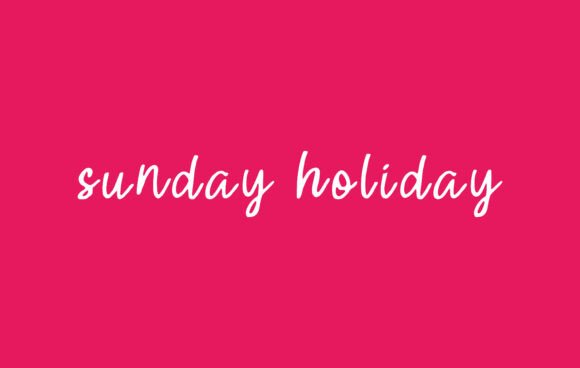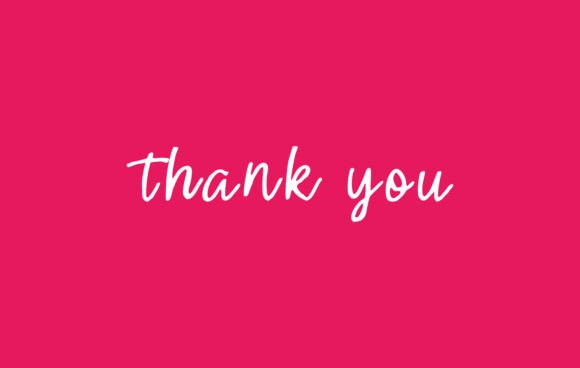
The DigitalSpire Font: A Romantic Touch for Your Creative Projects
I’ll never forget the time I was working on a wedding invitation design project, and my client asked me to create a bespoke font to match the elegant feel of their special day. I spent hours scouring the internet for the perfect font, but nothing seemed quite right. That’s when I stumbled upon the DigitalSpire font, and it instantly became my go-to choice. In this article, I’ll share my experience with this beautiful font, its features, and how to make the most of it in your creative projects.
A Personal Review of DigitalSpire Font
As a designer, I’m always on the lookout for fonts that can elevate my work and make it stand out. The DigitalSpire font has been a game-changer for me, and here’s what I love about it:
- ✨ Authentic handwritten feel: DigitalSpire has a genuine, handwritten look that adds a touch of warmth and personality to any design.
- ✅ Legibility: This font is incredibly legible, making it perfect for both title and body text.
- ✅ Romantic touch: The font’s elegant feel makes it ideal for designs that require a touch of sophistication and romance.
- ✅ Versatility: DigitalSpire can be used for a wide range of projects, from magazine headlines to social media graphics, branding, and wedding invitations.
While DigitalSpire is an excellent font, it’s not without its quirks:
- 🤔 Limited character set: Some users have noted that the font’s character set is limited, which can make it difficult to use for certain projects.
- ⚠️ Not suitable for body text: While the font is legible, it’s not the best choice for long blocks of body text due to its elegant, cursive nature.
DigitalSpire font comes with a range of OpenType features and glyphs that can enhance your designs. Here are some tips on how to access and use them:
- Stylistic alternates: Many OpenType fonts, including DigitalSpire, offer stylistic alternates that can be used to create variations of your text.
- Glyphs: Glyphs are special characters that can add visual interest to your text. DigitalSpire comes with a range of glyphs that can be accessed using the glyph panel in Adobe applications.
The Story Behind DigitalSpire Font
DigitalSpire font was designed by a team of typographers who wanted to create a font that would capture the essence of handwritten elegance. Inspired by classic calligraphy and modern digital design, DigitalSpire is a unique blend of traditional and contemporary typography.
| What is the DigitalSpire font best used for? | DigitalSpire is perfect for designs that require a romantic touch, such as wedding invitations, social media graphics, and magazine headlines. |